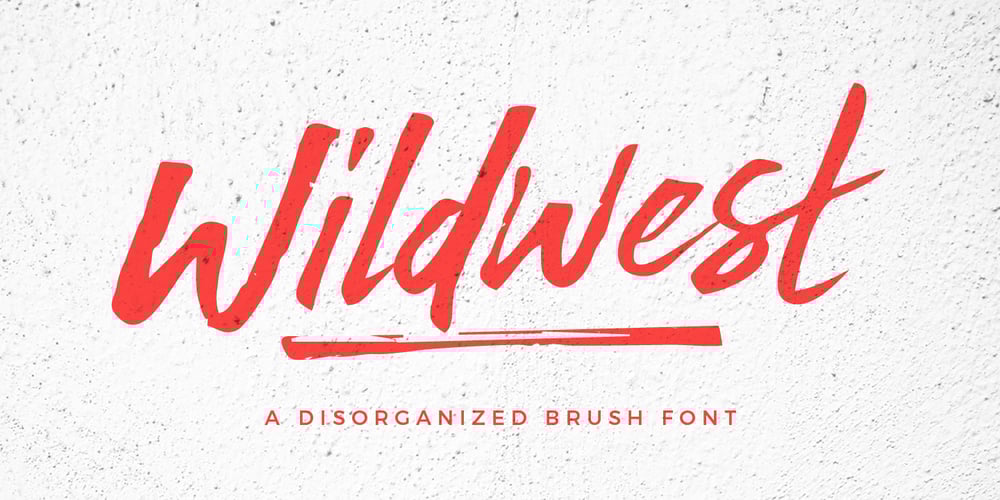
Wildwest
Wildwest font
Wildwest Font Family was designed by Bagas Ardiatma and published by Trustha. Wildwest contains 2 styles and family package options. Wildwest is a dynamic and impactful brush font, giving it credence for usage as a display typeface. With a lot of movement and flow, Wildwest is a wonderful font that will give all your designs the touch they need.